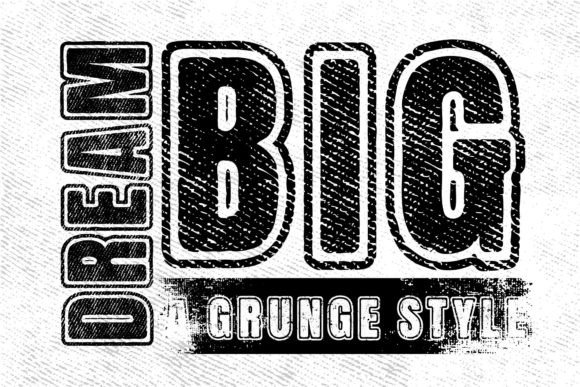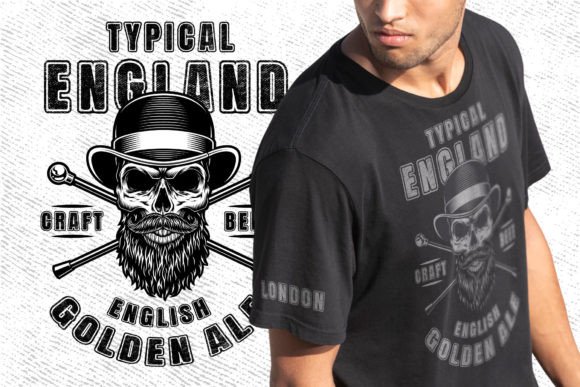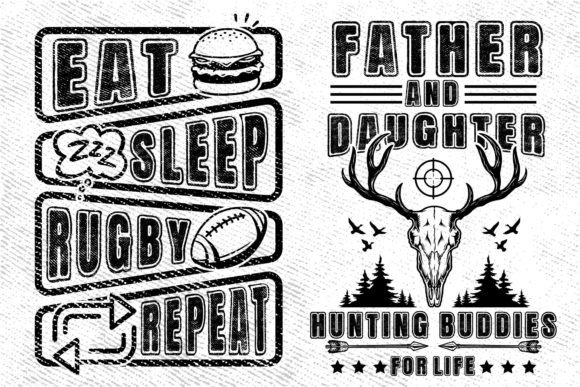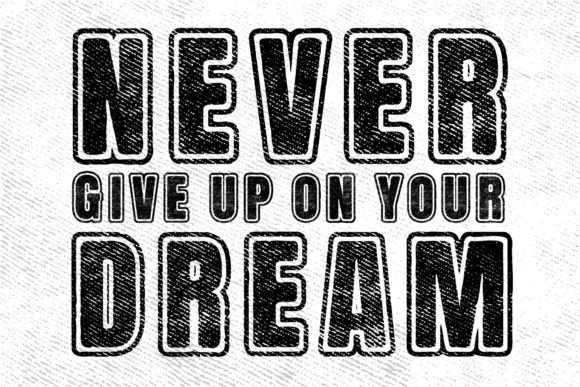
Dream Big Font: 4 Cute Styles for Cricut & DIY Projects!
About the Dream Big Font
The Dream Big Font is here to transform your projects with its distinctive character and style. Dream Big is a cool and retro styled display font. It works well for t-shirt designs, vintage or creations that require an assertive vibe.
Its strong, retro styling makes it ideal for headlines, posters, and logos requiring a bold, assertive presence. Dream Big excels in short, impactful text applications, adding a vintage flair to branding for clothing lines, music projects, or anything needing a touch of rebellious cool. Avoid using it for body text or lengthy paragraphs; its highly stylized nature compromises readability in extended use.
The font projects a confident, slightly rebellious personality, best suited for brands that want to convey a sense of retro style and bold energy.
Dream Big Font Usage Examples
Dream Big Font Example